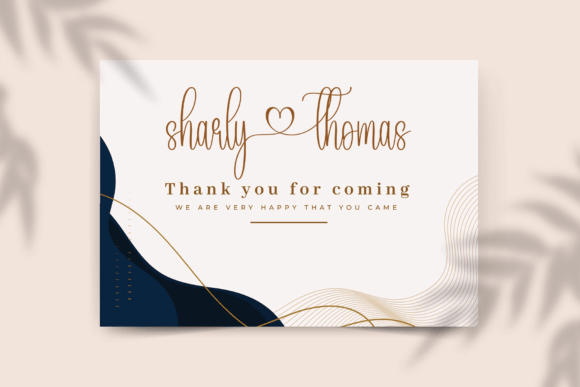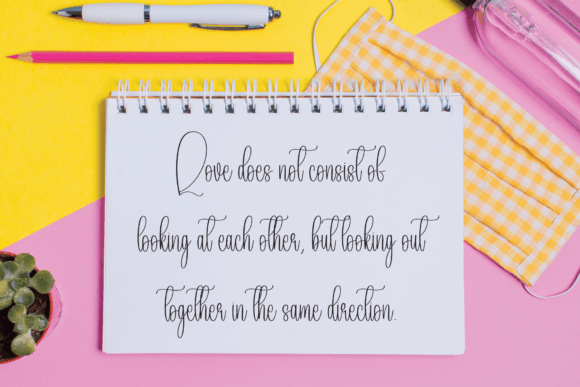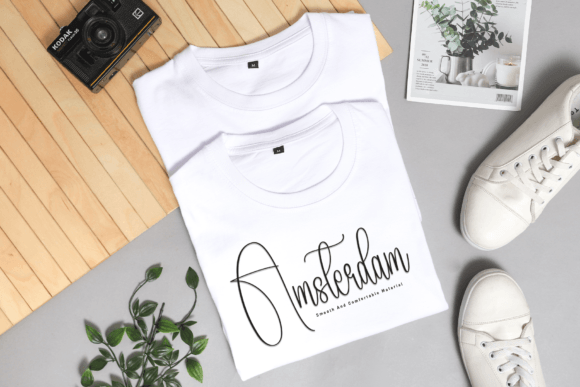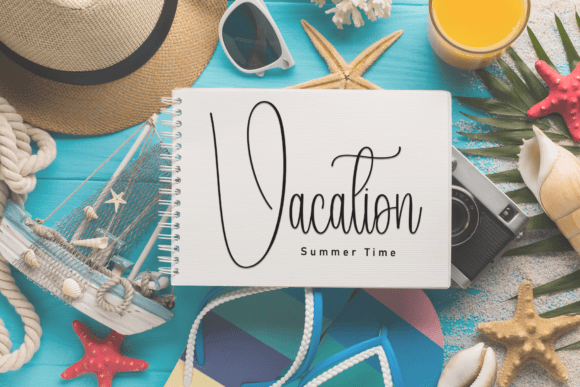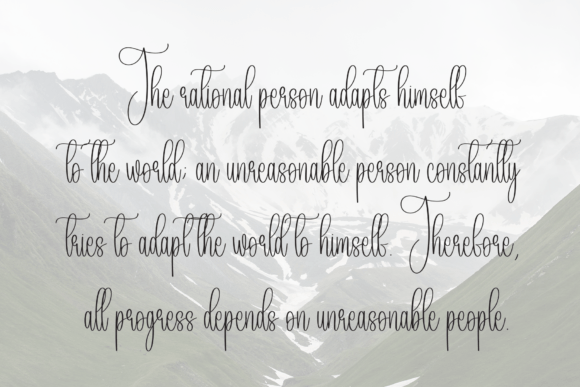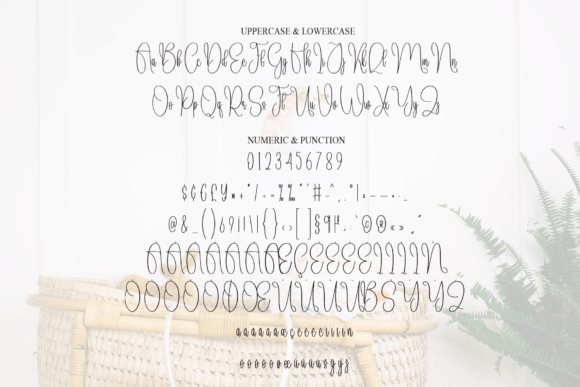
Baby Boho Font: The Ultimate Guide to this Modern and Charming Handwritten Font
Are you a designer or crafter looking for a font that captures the essence of effortless elegance and casual charm? Look no further than the Baby Boho font. This modern and charming handwritten font has taken the design world by storm, and for good reason. With its fluid, cohesive strokes and friendly appearance, Baby Boho is perfect for a wide range of creative projects, from personal blogs and heartfelt invitations to boutique branding and more.
What is Baby Boho Font?
Baby Boho is a modern and charming handwritten font that is designed to capture the effortless elegance of casual script. It’s a font that exudes a sense of warmth and friendliness, making it perfect for projects that require a personal touch. With its fluid, cohesive strokes and smooth lines, Baby Boho is a font that is both visually appealing and highly legible.
Key Features of Baby Boho Font
So what sets Baby Boho apart from other fonts? Here are some of its key features:
- Fluid, cohesive strokes: Baby Boho’s strokes are smooth and flowing, giving the font a sense of elegance and sophistication.
- Friendly appearance: The font has a warm and approachable feel, making it perfect for projects that require a personal touch.
- High legibility: Despite its elegant appearance, Baby Boho is highly legible, even at small sizes.
- Modern and charming: The font has a distinctly modern feel, while still retaining a charming, handwritten quality.
Uses for Baby Boho Font
So what can you use Baby Boho for? The possibilities are endless, but here are some ideas to get you started:
- Personal blogs: Add a personal touch to your blog with Baby Boho’s friendly and approachable font.
- Heartfelt invitations: Use Baby Boho to create beautiful, handwritten-style invitations for weddings, baby showers, and more.
- Boutique branding: Give your boutique or small business a unique and elegant brand identity with Baby Boho.
- Stationery and paper crafts: Use Baby Boho to add a touch of elegance to your stationery, cards, and paper crafts.
Why Designers and Crafters Love Baby Boho Font
So why do designers and crafters love Baby Boho? Here are just a few reasons:
- Easy to use: Baby Boho is a highly versatile font that can be used for a wide range of projects, from digital designs to print crafts.
- Unique and distinctive: The font has a distinctly modern and charming feel that sets it apart from more traditional fonts.
- High-quality design: Baby Boho is designed to be highly legible and visually appealing, making it perfect for projects that require a high level of quality.
Tips for Using Baby Boho Font
Here are a few tips for using Baby Boho in your designs:
- Pair with complementary fonts: Baby Boho pairs well with a range of fonts, from clean and simple sans-serifs to more elegant scripts.
- Experiment with colors: The font looks great in a range of colors, from soft pastels to rich jewel tones.
- Use for headlines and body text: Baby Boho is highly legible, making it perfect for both headlines and body text.
In conclusion, Baby Boho is a modern and charming handwritten font that is perfect for designers and crafters looking to add a personal touch to their projects. With its fluid, cohesive strokes and friendly appearance, it’s ideal for a wide range of creative projects, from personal blogs and heartfelt invitations to boutique branding and more. Whether you’re a seasoned designer or a crafty DIY enthusiast, Baby Boho is a font that’s sure to inspire your next creative project.
So why not give Baby Boho a try? With its ease of use, high-quality design, and versatility, it’s a font that’s sure to become a favorite in your design toolkit.